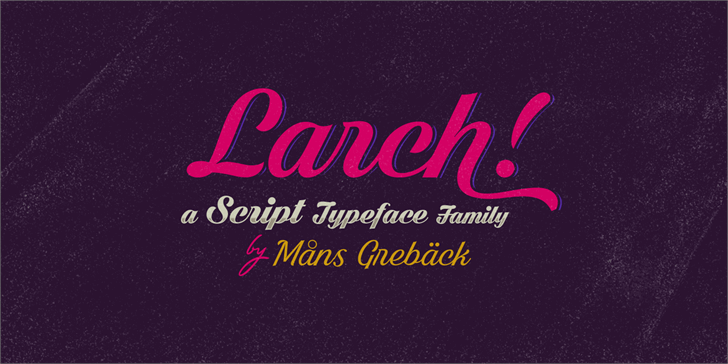
Black Larch Font
Write # after any lowercase letter to make swashes!
You can also write % after the following letters to make left swashes:
b d f h i j k l t
Example: Black% Lar#ch